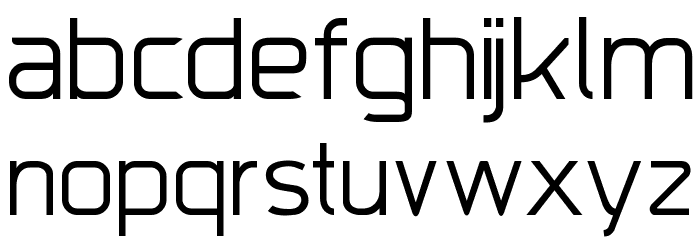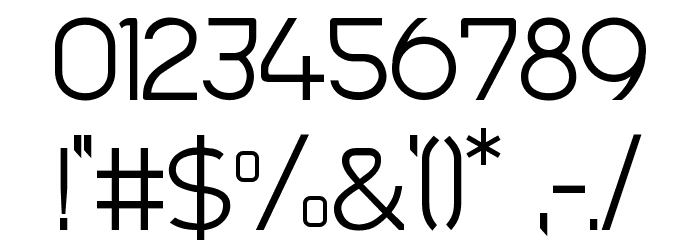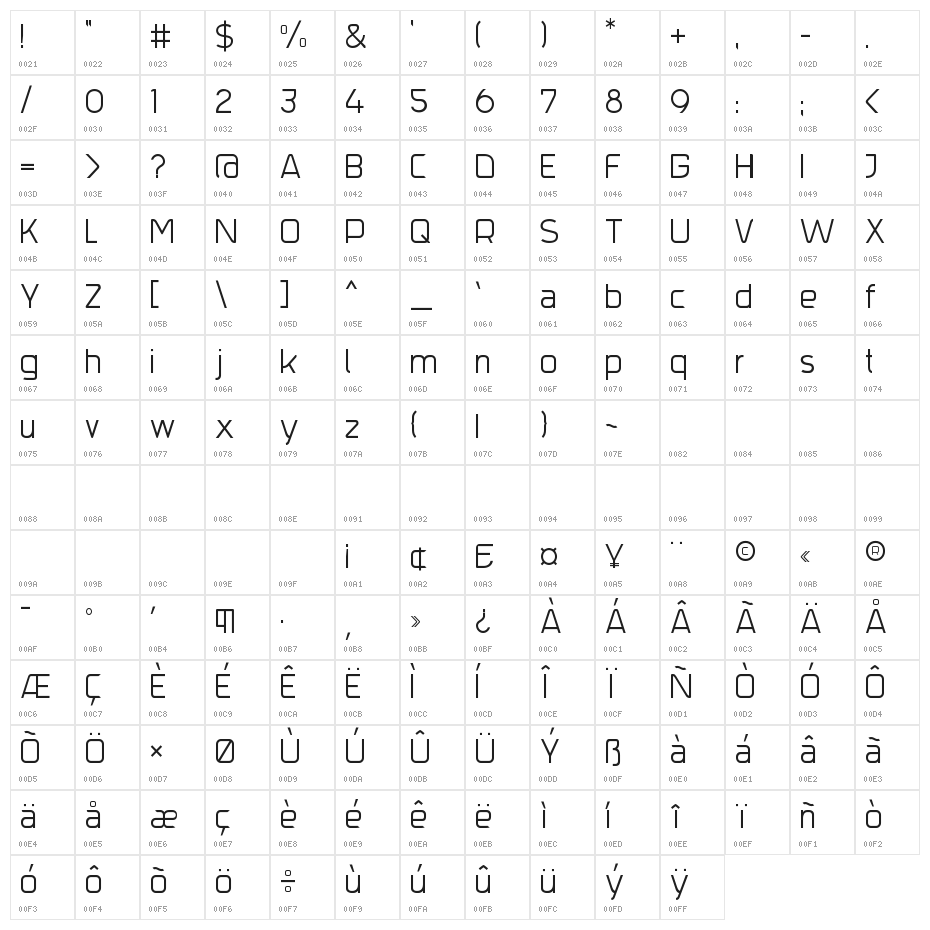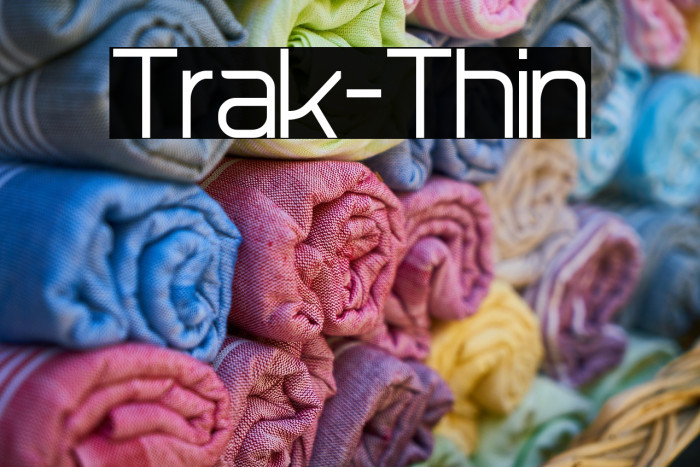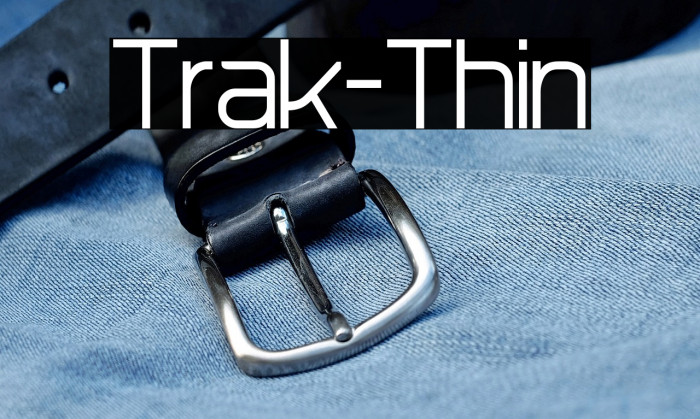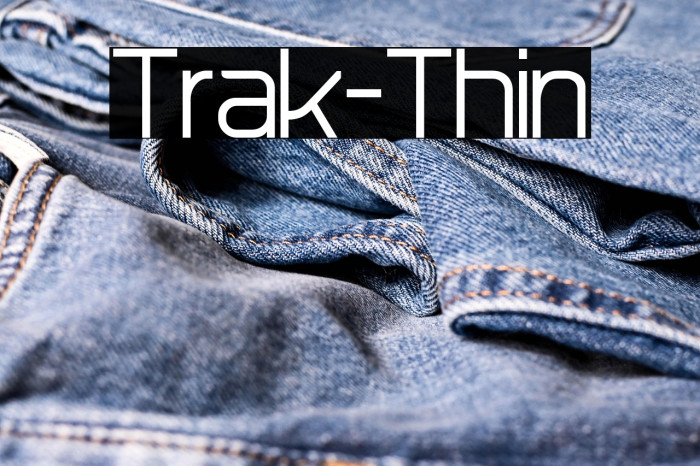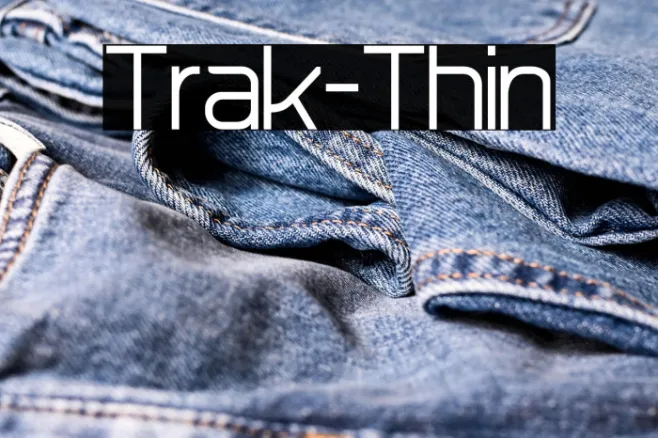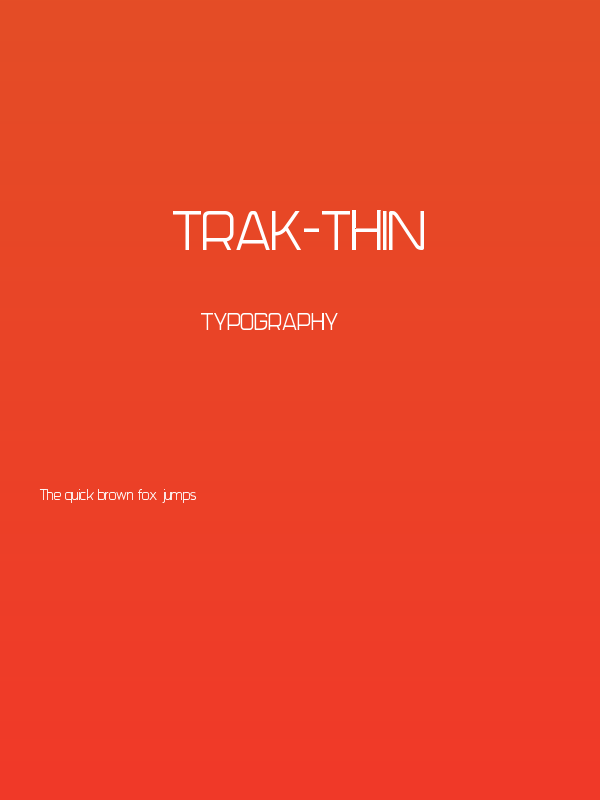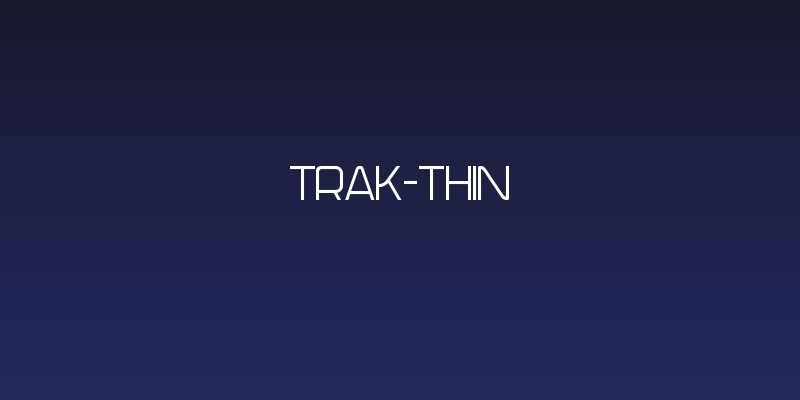
Trak-Thin Font
This font features a sleek, modern design with clean lines and a geometric structure. The characters are uniformly thin, contributing to a minimalist aesthetic. Uppercase and lowercase letters maintain a consistent height, while the numerals are designed to align perfectly with the letterforms. The special characters are crafted with the same attention to detail, ensuring a cohesive look across all glyphs. The overall appearance is highly legible, making it suitable for a variety of digital and print applications. Its simplicity and elegance make it an excellent choice for contemporary design projects.
A sleek, modern font with thin, geometric lines and high legibility.